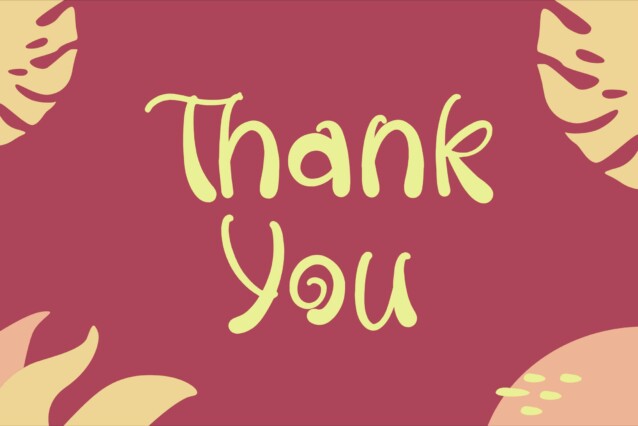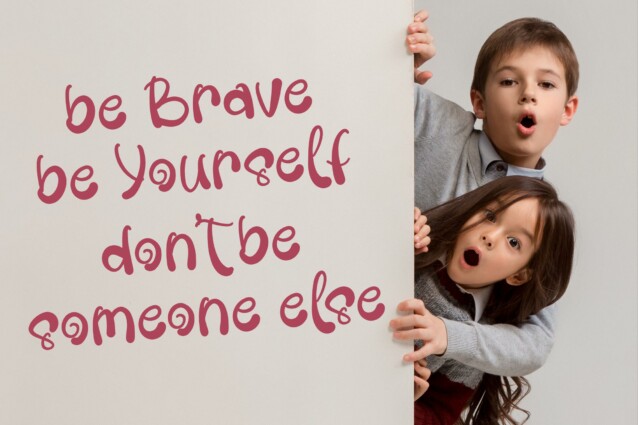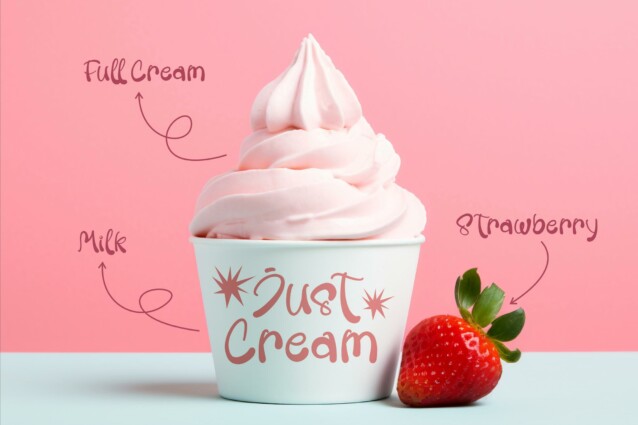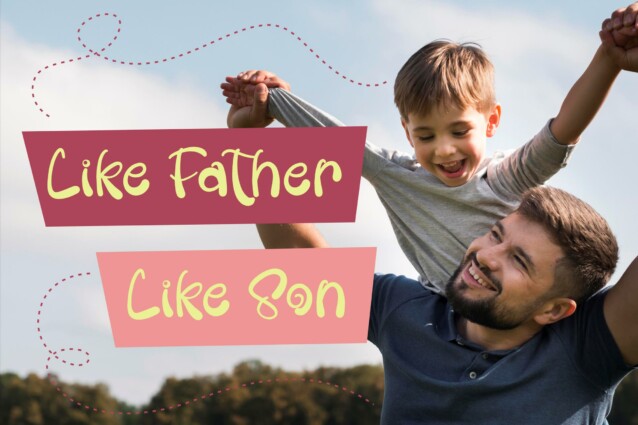
Rubickle Font
Rubickle Font is a playful display font, suitable for any projects such as: logos, branding projects, homeware designs, product packaging, mugs, quotes, posters, shopping bags, t-shirts, book covers, name card, invitation cards, greeting cards, label, photography, watermark, special events, and all your other lovely projects that need a beautiful script taste.